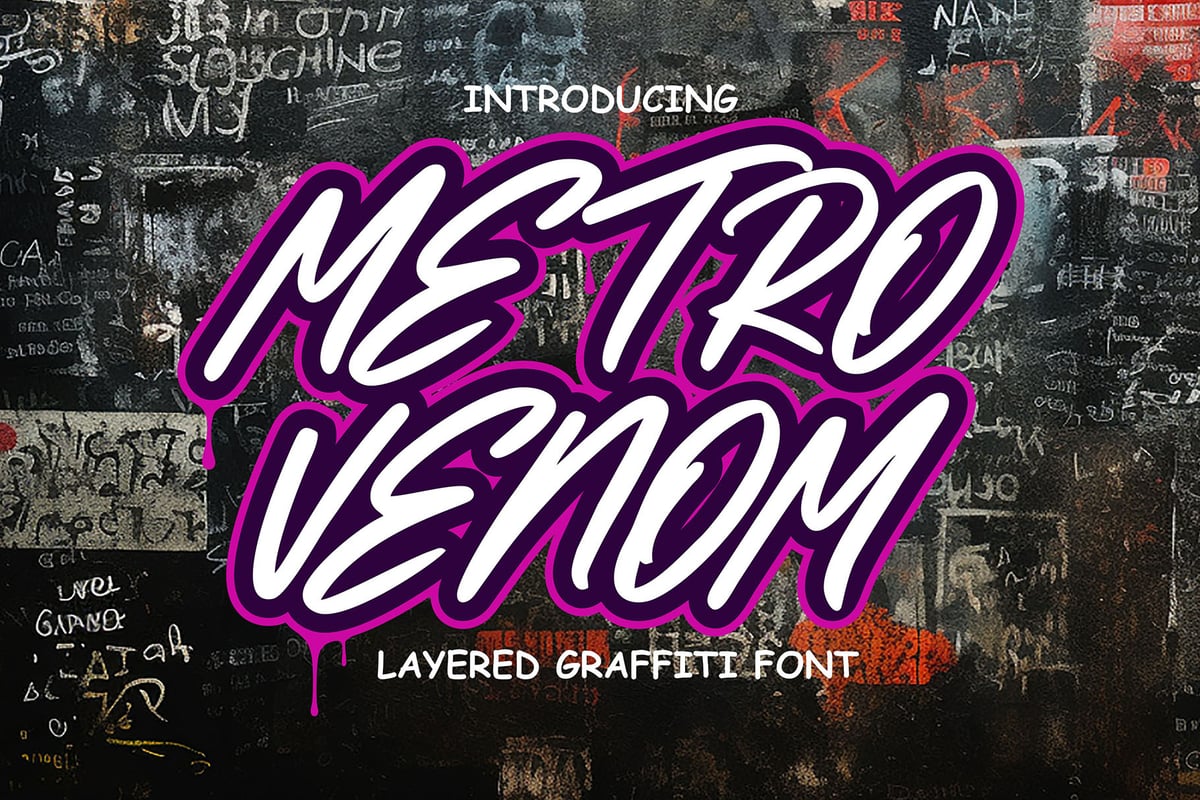
Metro Venom
Metro Venom is an outlined graffiti brush font that captures the raw energy of street lettering and the expressive rhythm of urban brush strokes. Designed to look bold, fast, and aggressively stylish, Metro Venom brings the aesthetic of spray-painted outlines and hand-brushed graffiti into a clean, digital format that’s perfect for modern designers who want loud, rebellious typography. Every letter in Metro Venom carries the spirit of street culture — sharp edges, fast curves, uneven pressure,